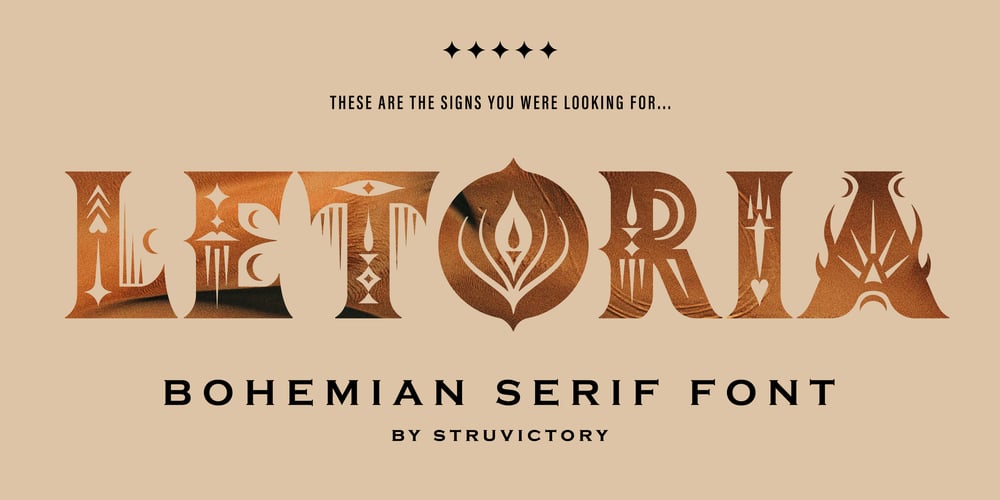
Letoria Bohemian Font Family was designed by Viktoryia Strukouskaya and published by Struvictory.art. Letoria Bohemian contains 1 styles and family package options. Welcome to LETORIA – a modern serif font that unveils mystical essence in every character. Adorned with symbols like the moon, candle, serpent, sun, rays, torch, and eye, these letters not only invite you on a journey into the realm of esotericism but also offer a unique opportunity to use them as a logo for your brand. Allow Letoria to be a source of inspiration and magic in each glyph, transforming your message into art.LETORIA is presented with a decorated bold uppercase and a bold lowercase. The font includes the most popular latin-based languages, you can check the symbol you need by typing a couple of words in the font preview box.–Uppercase